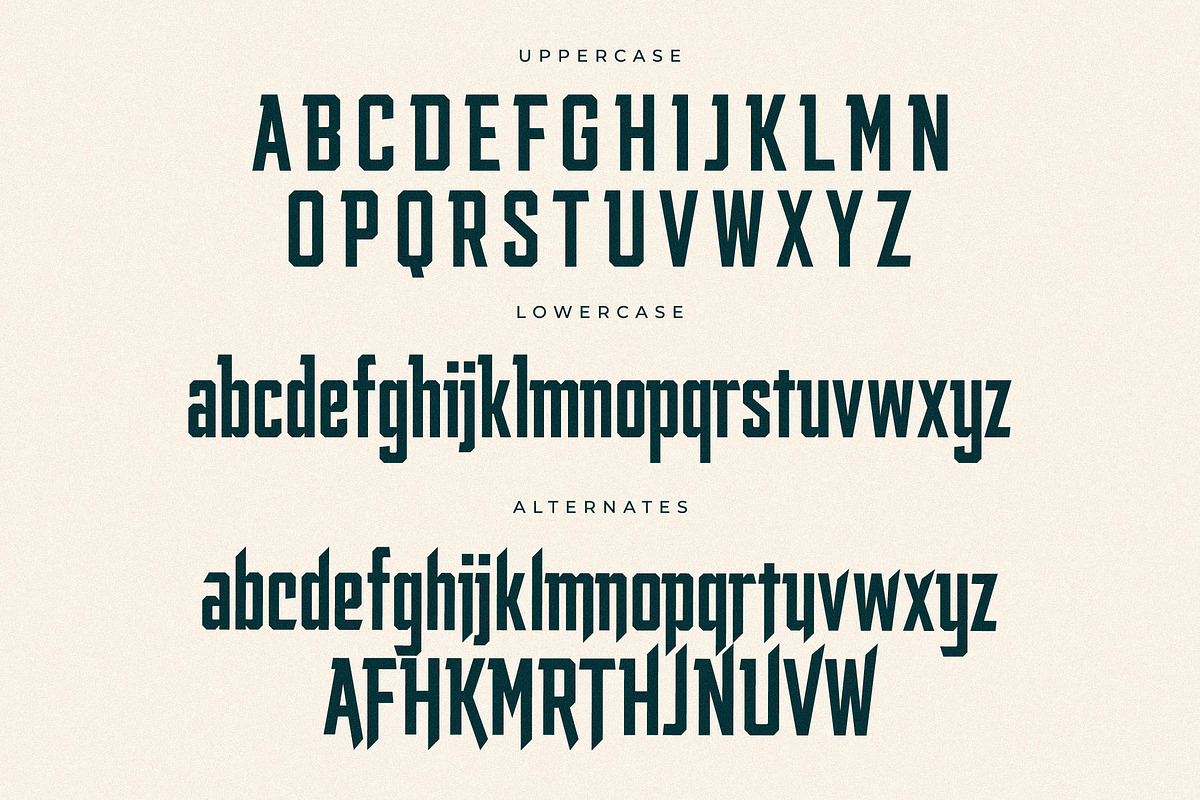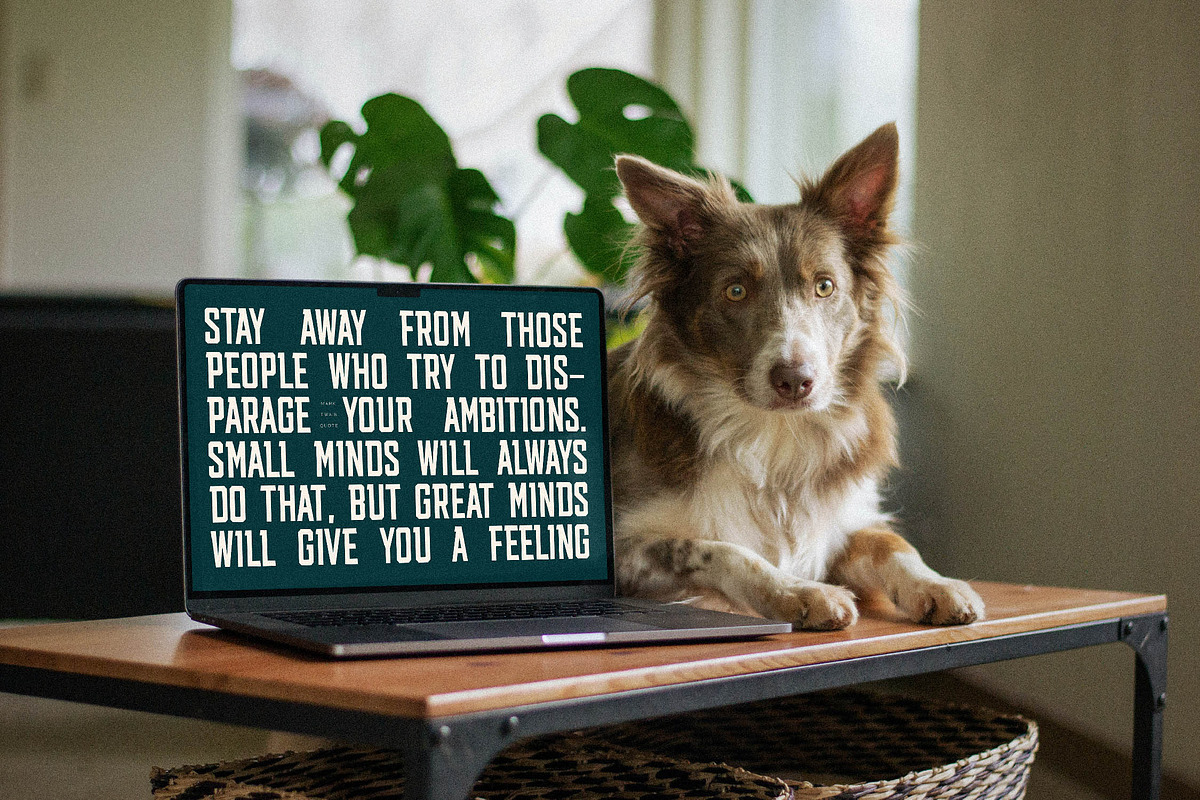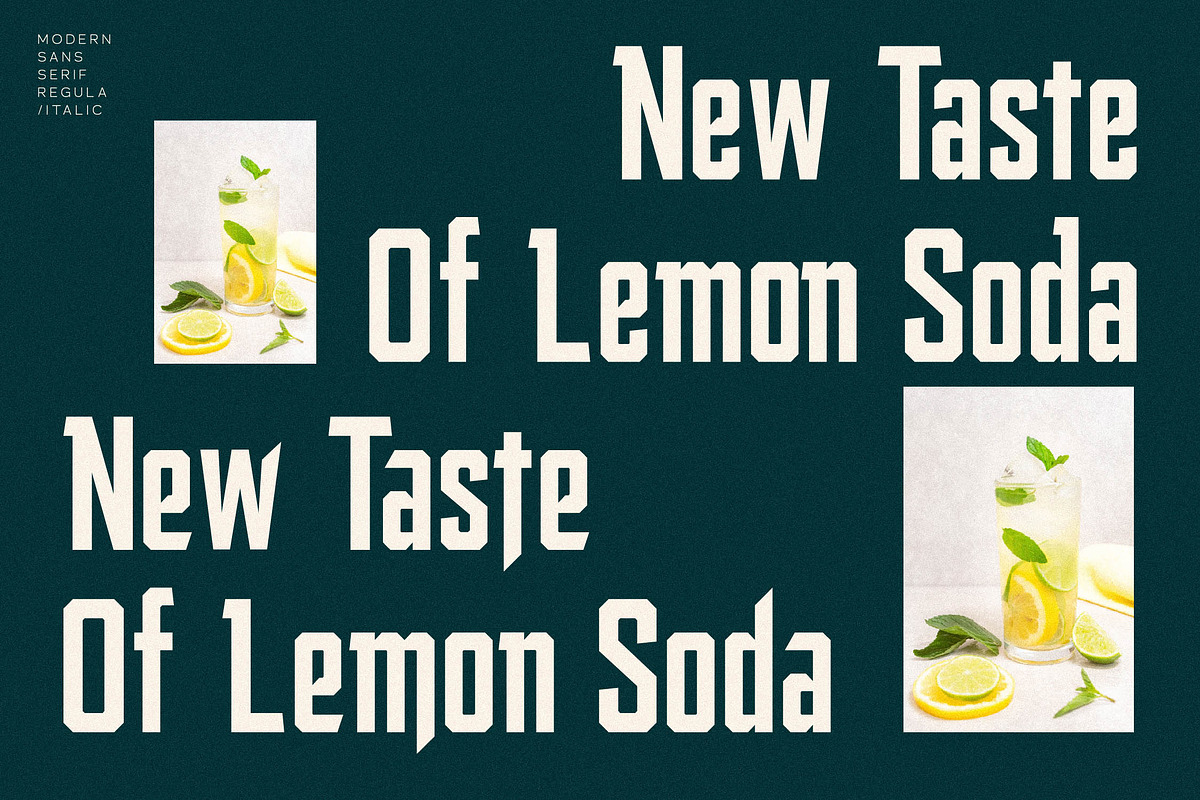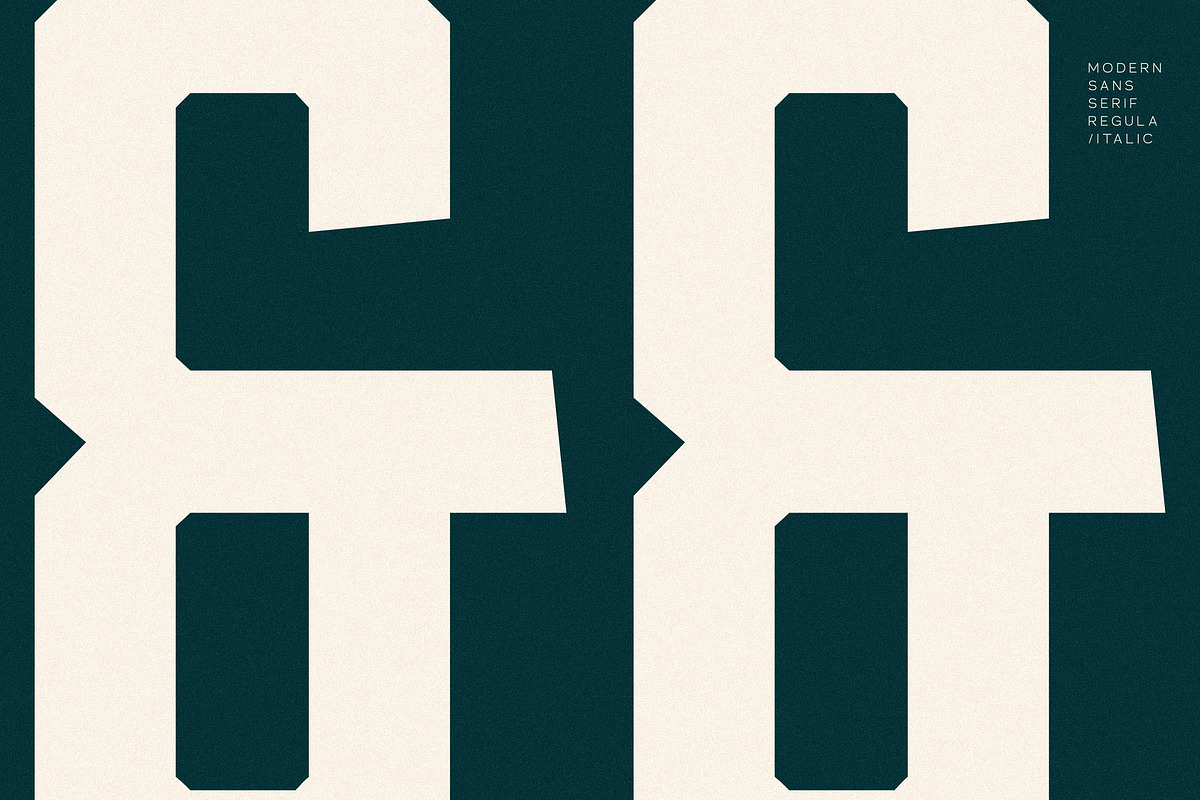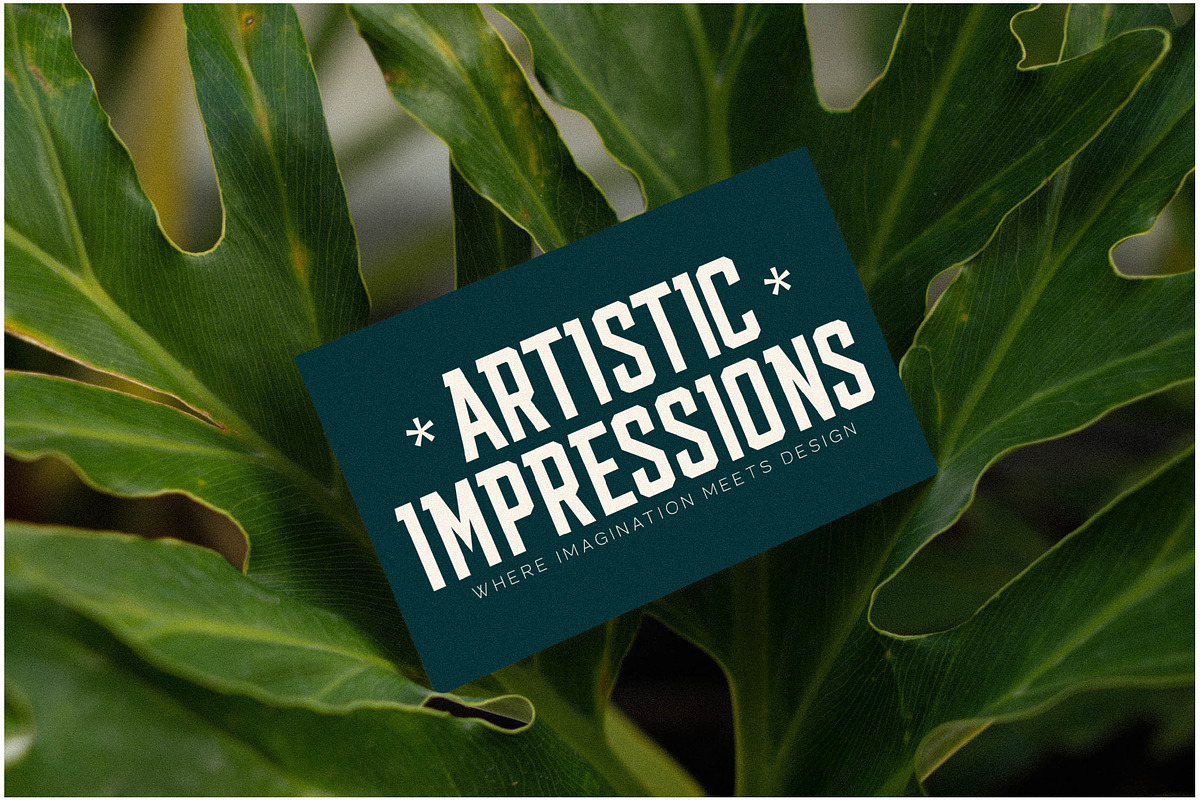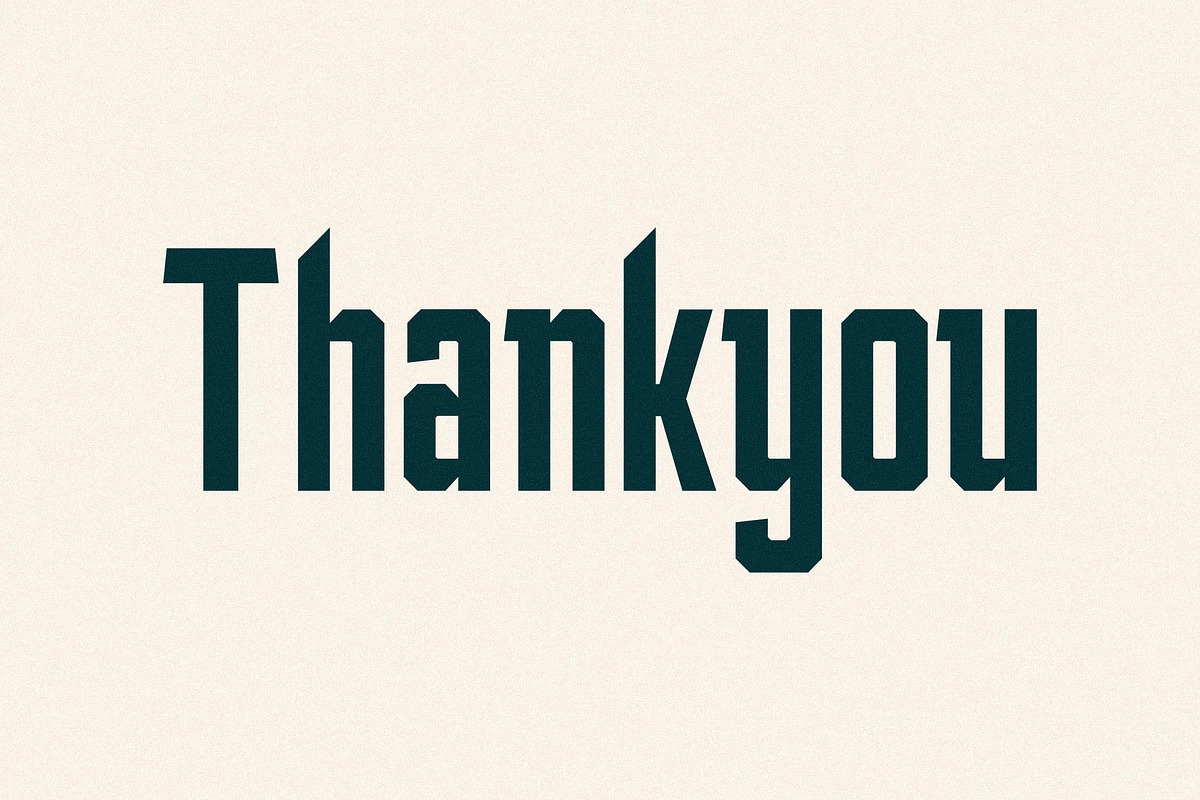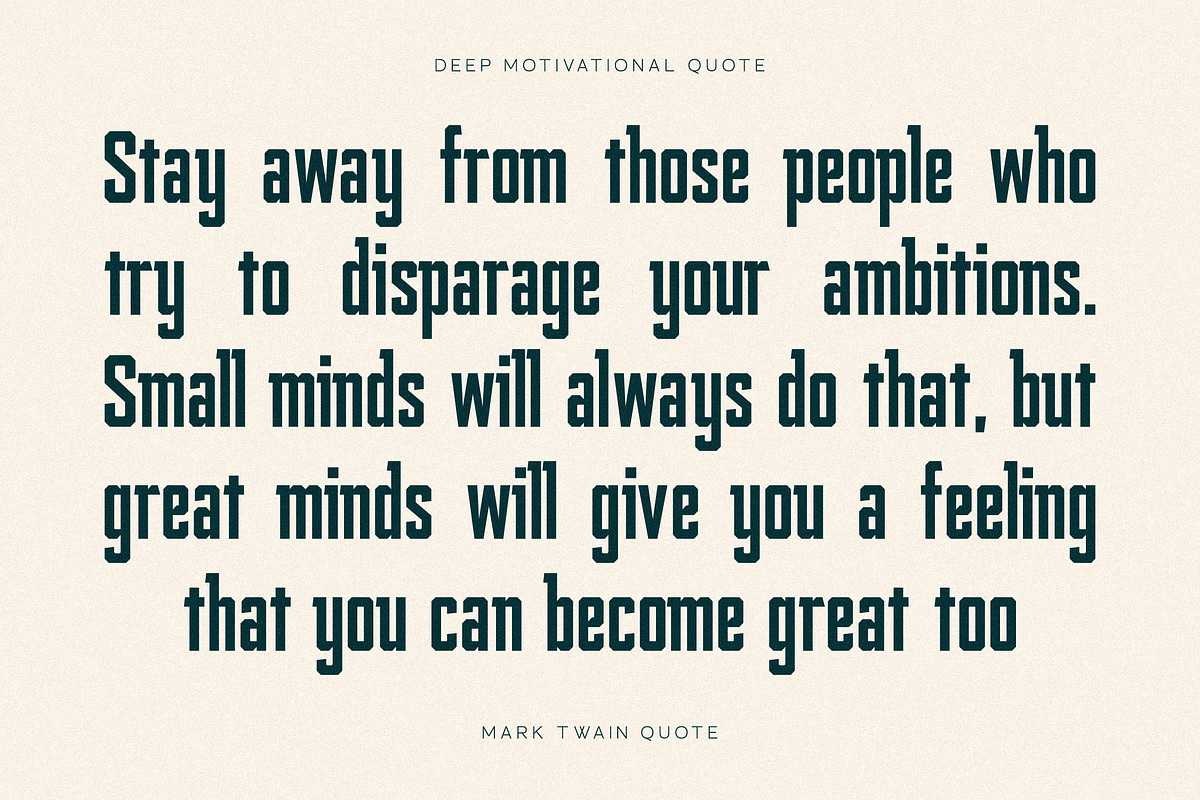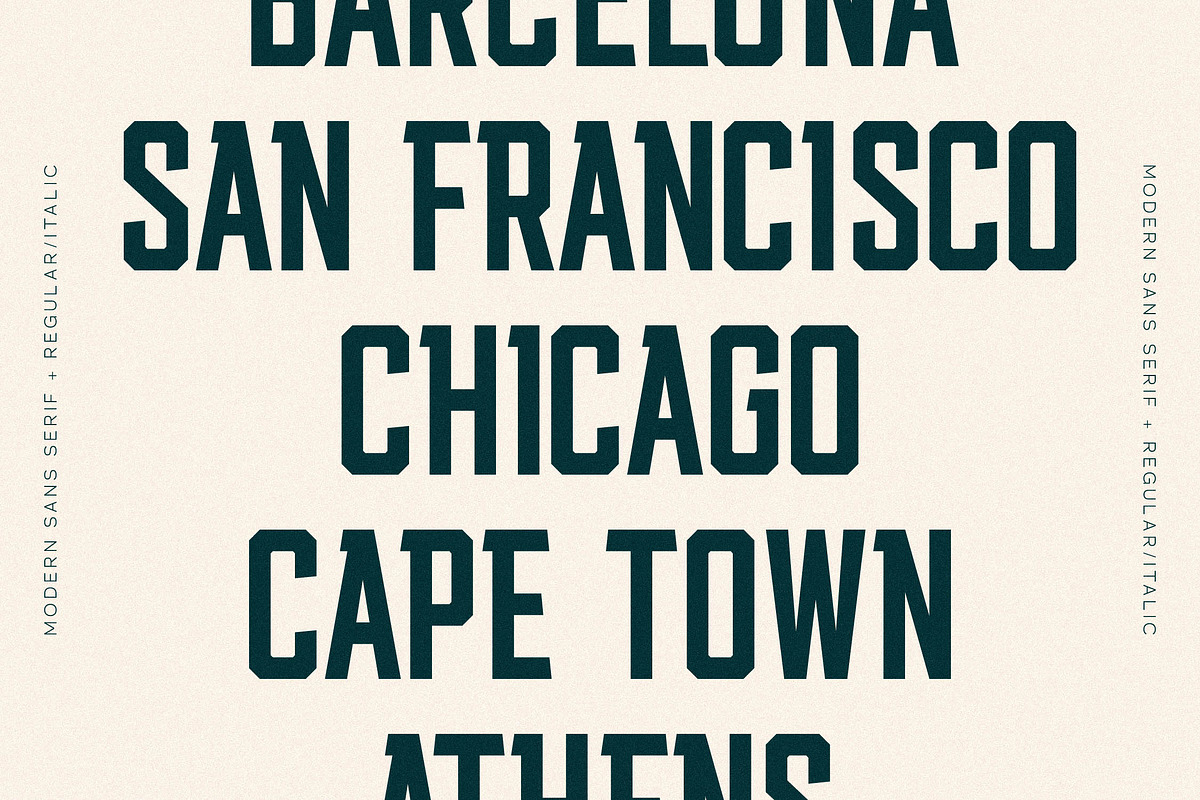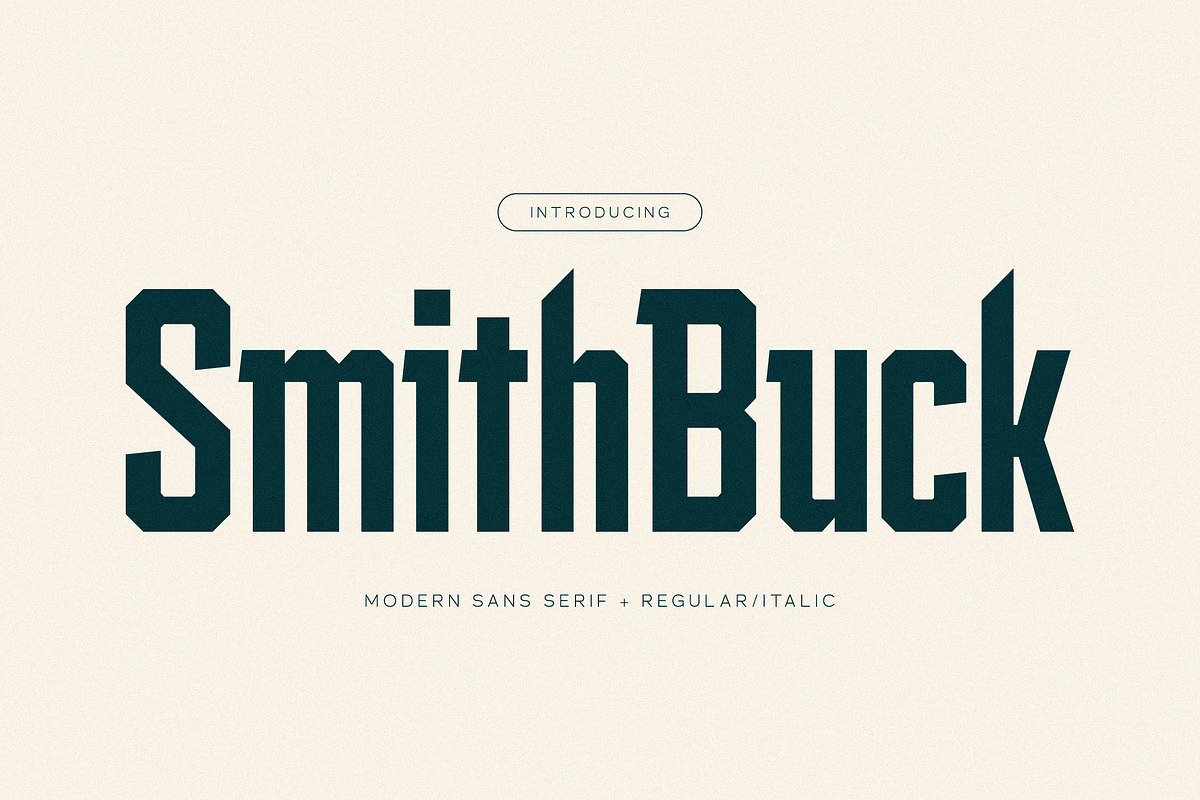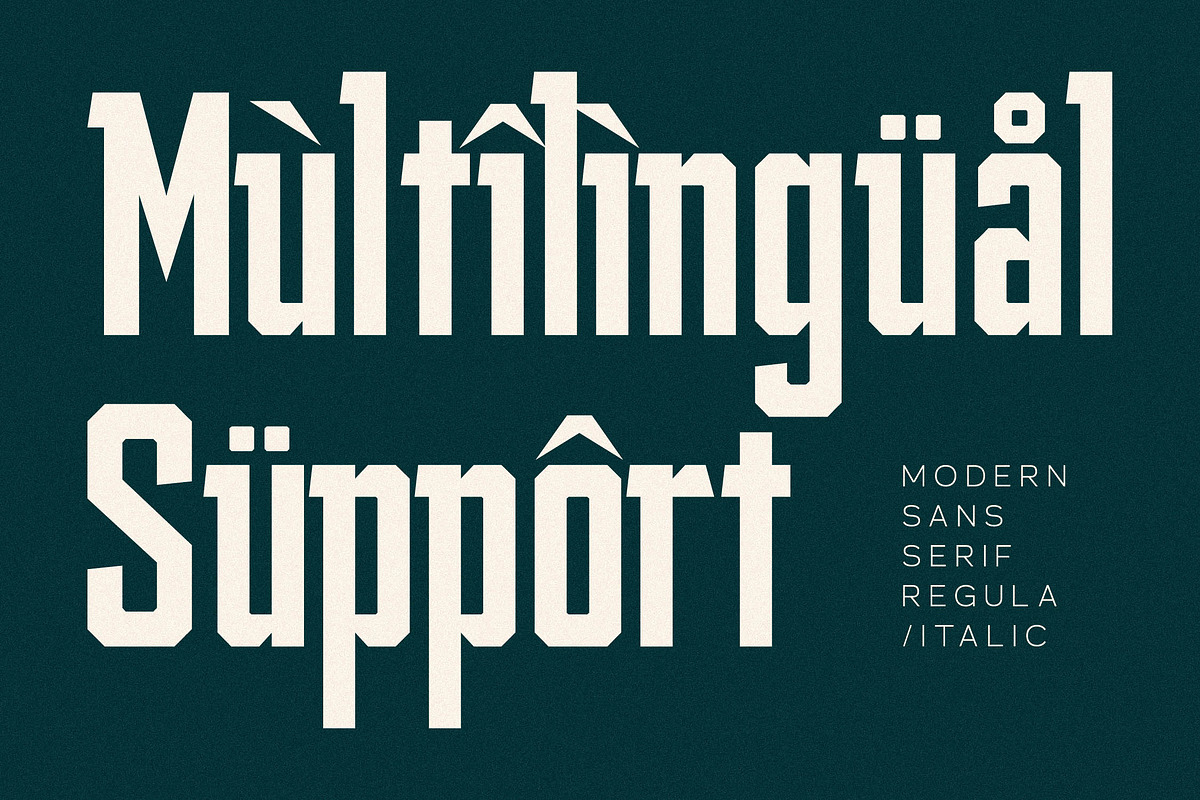
Smith Buck Modern Sans Serif
Proudly present Smith Buck Typeface , created by Storytype, A serif modern and classic typeface that has own unique style & modern look. This typeface is perfect for an elegant & luxury logo, book or movie title design, fashion brand, magazine, clothes, lettering, quotes, and so much more.